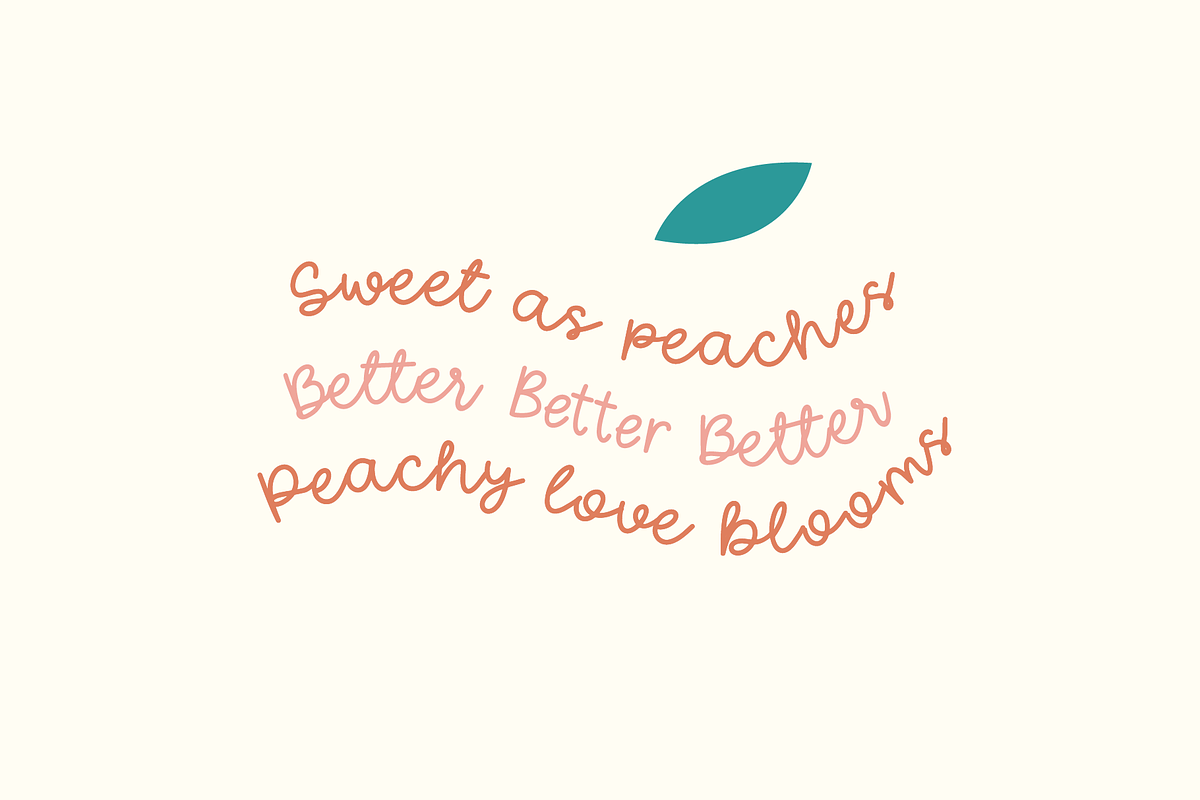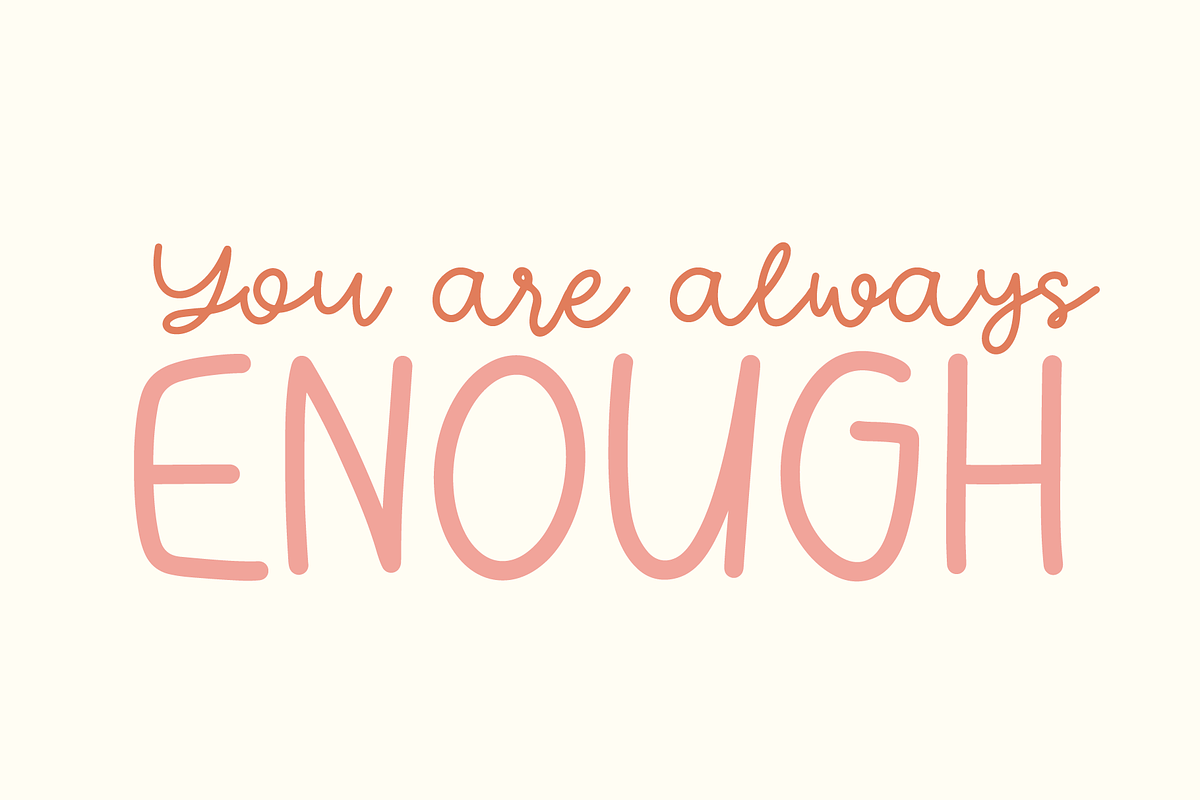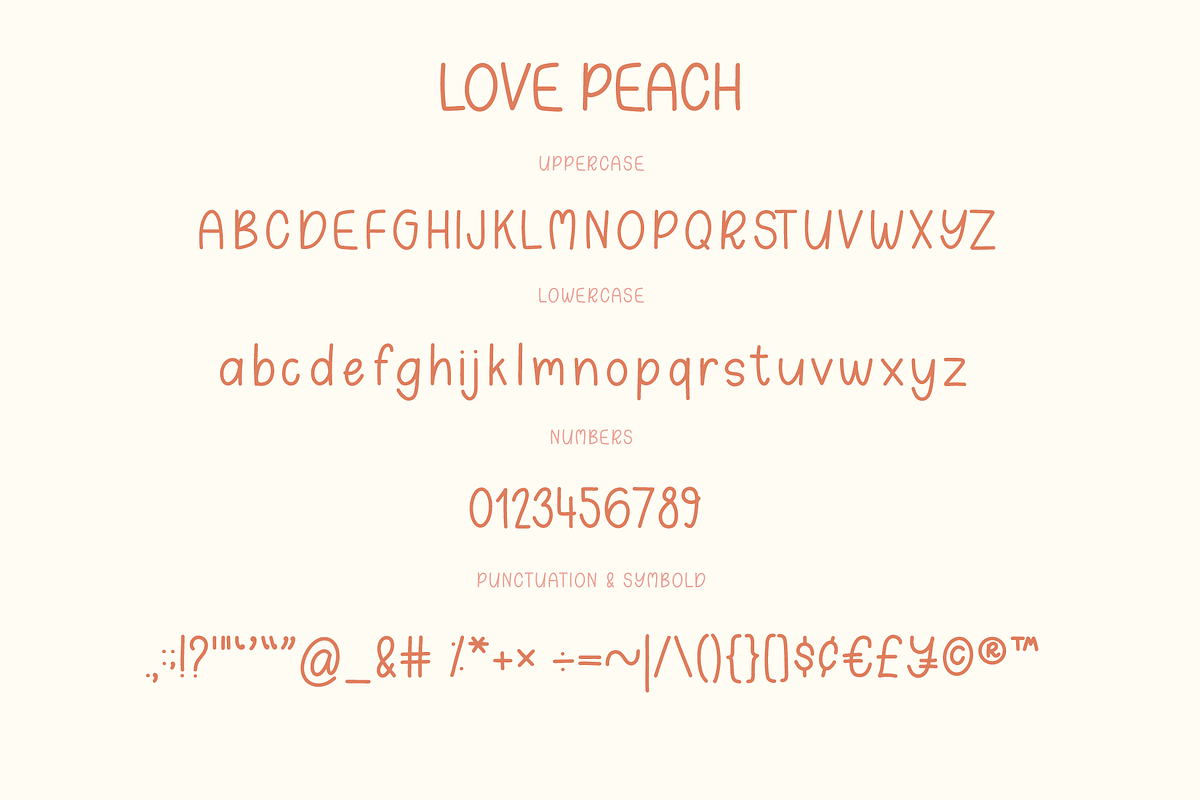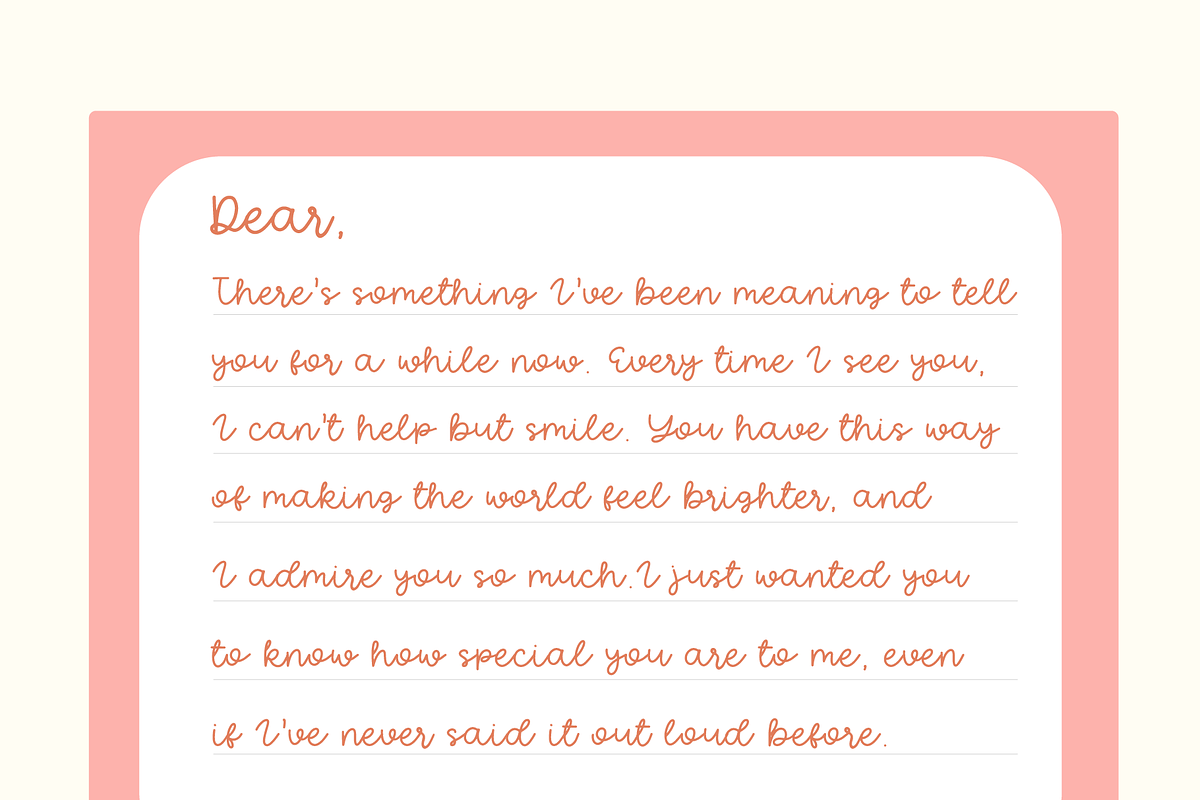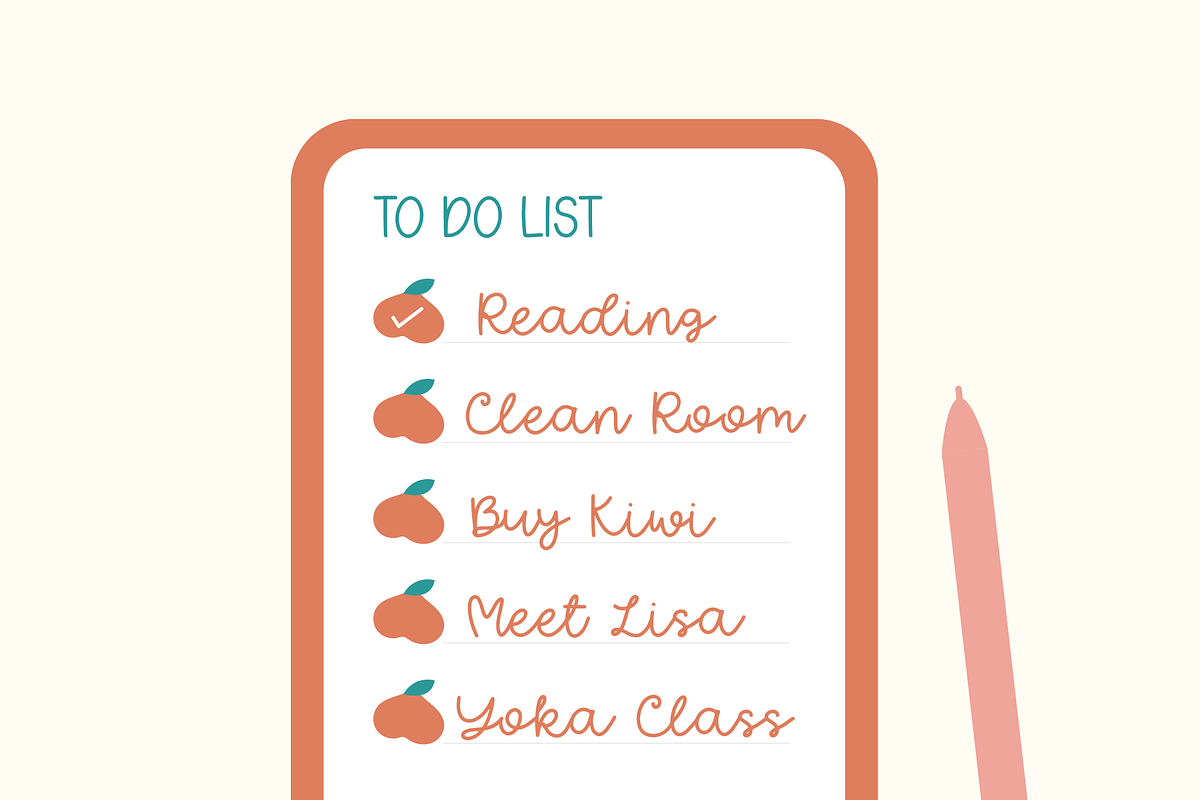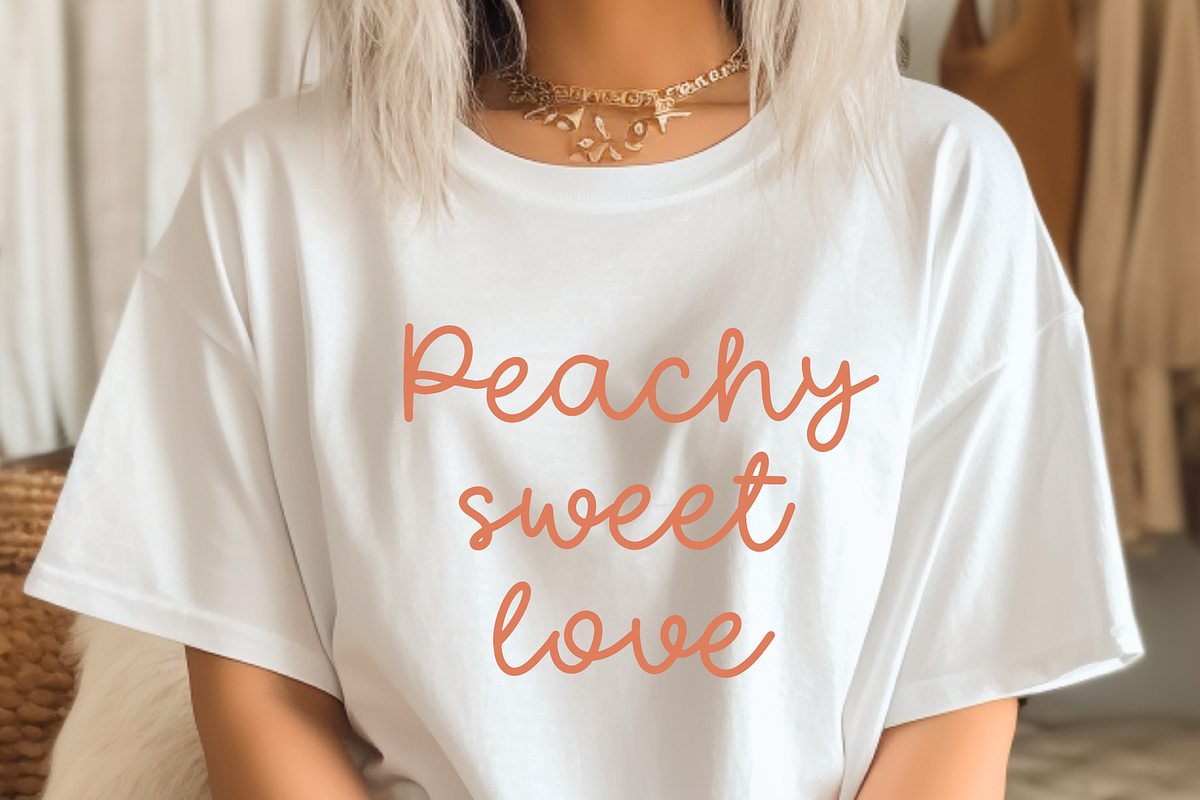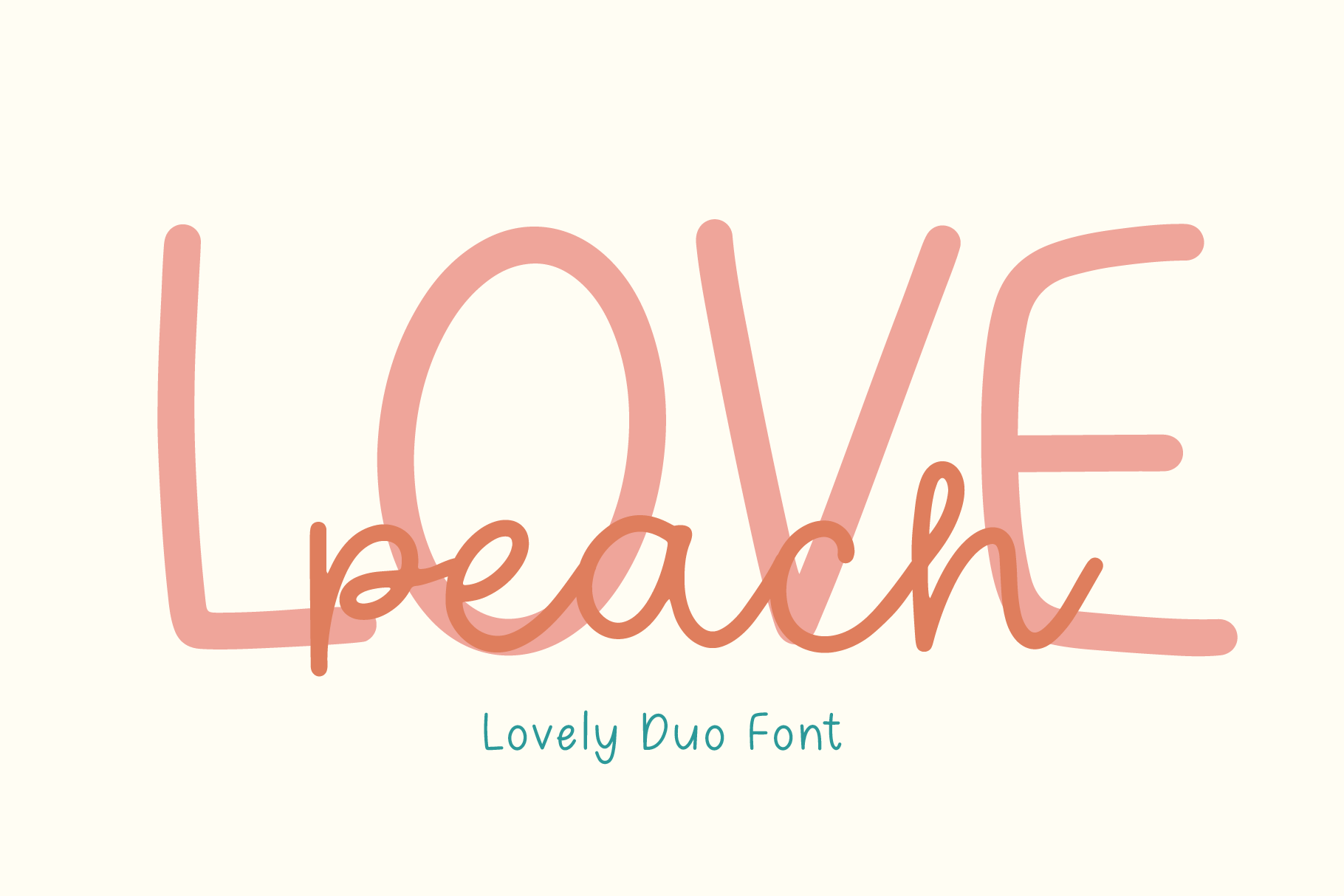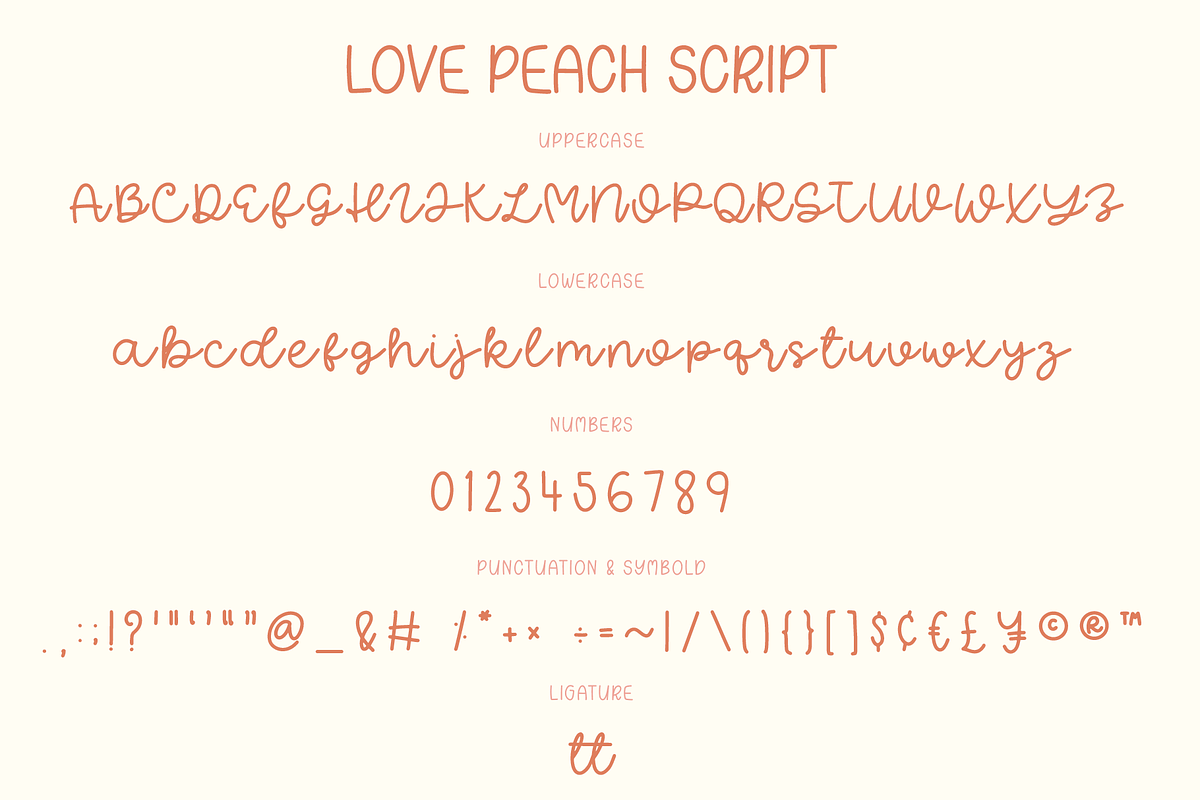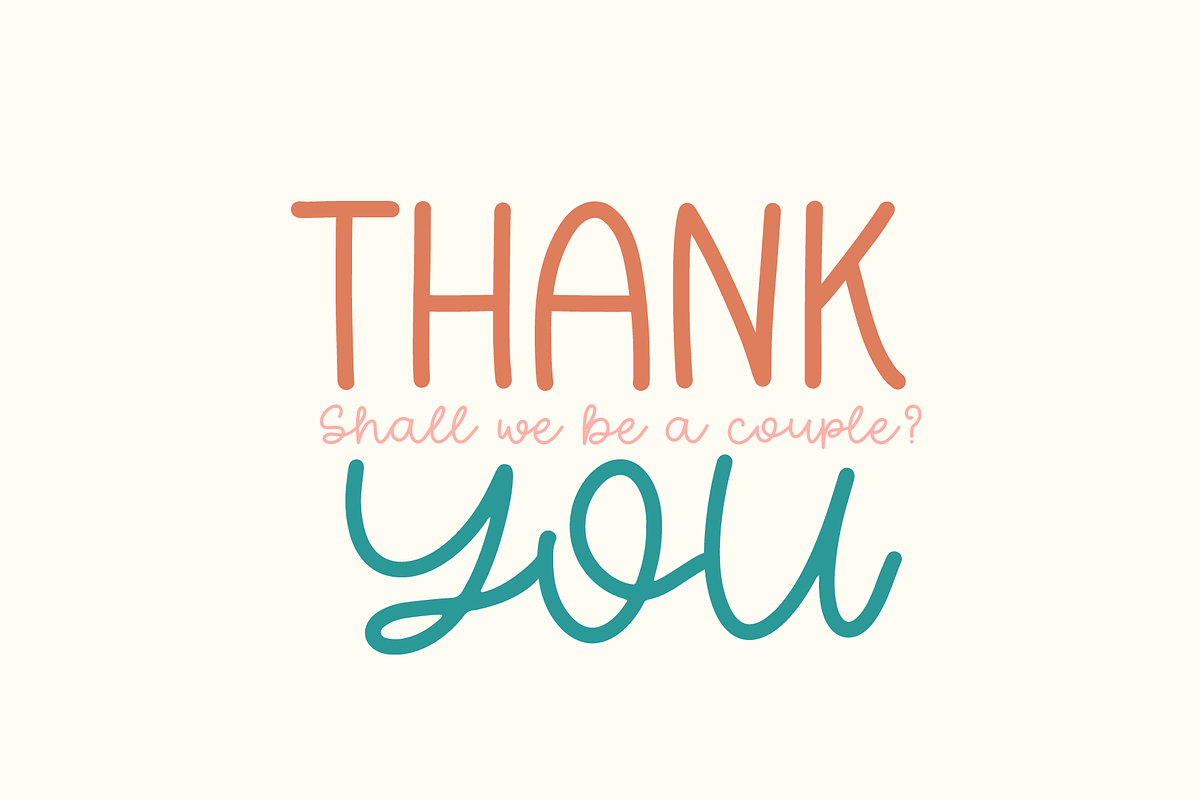
LOVE PEACH LOVELY DUO FONT
Love Peach is a duo font combining a handwritten and script style, giving off a playful, cute, and friendly vibe. Perfect for love-themed designs and invitations, or use it with Planner, adding warmth to all your projects!